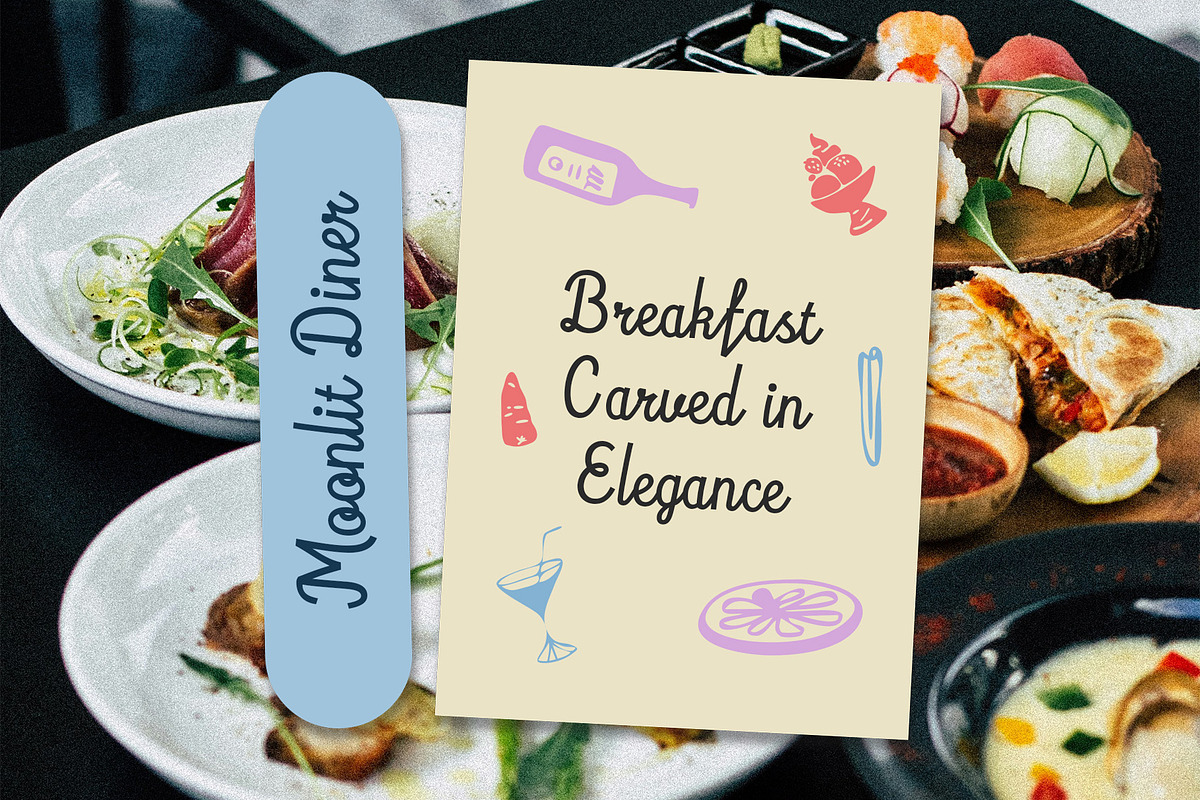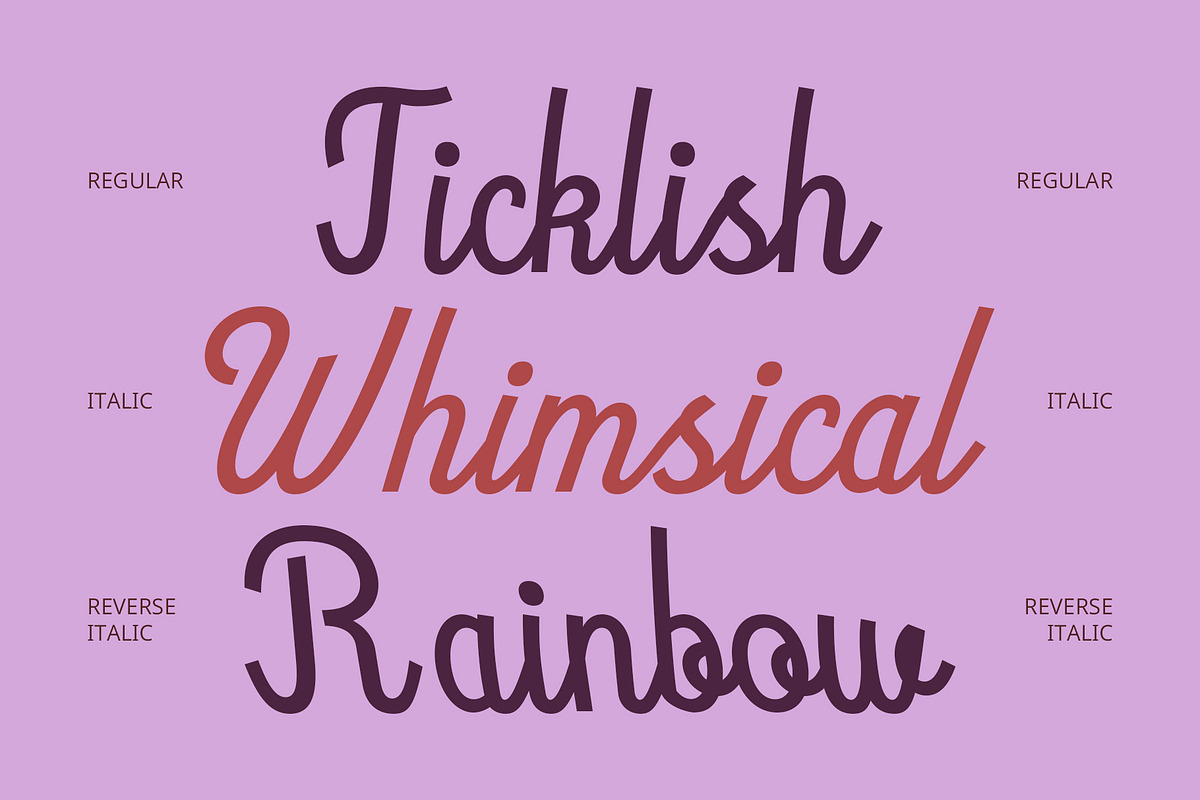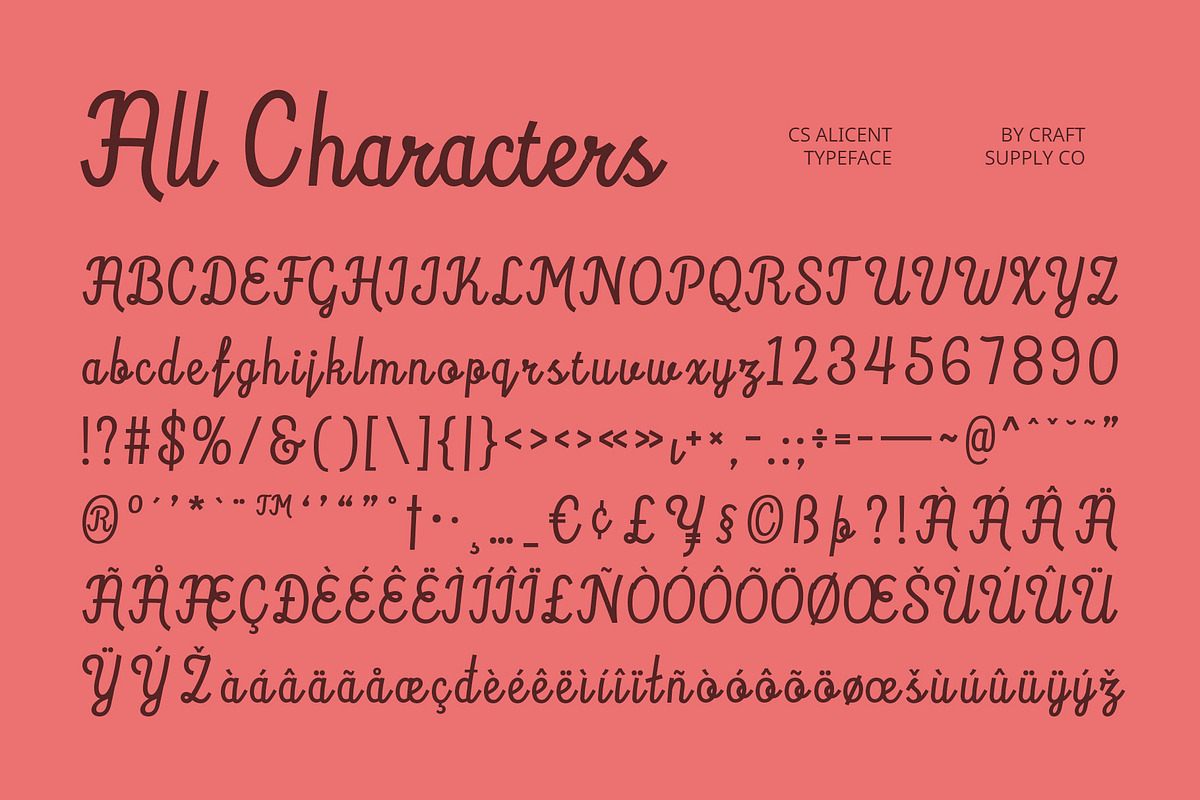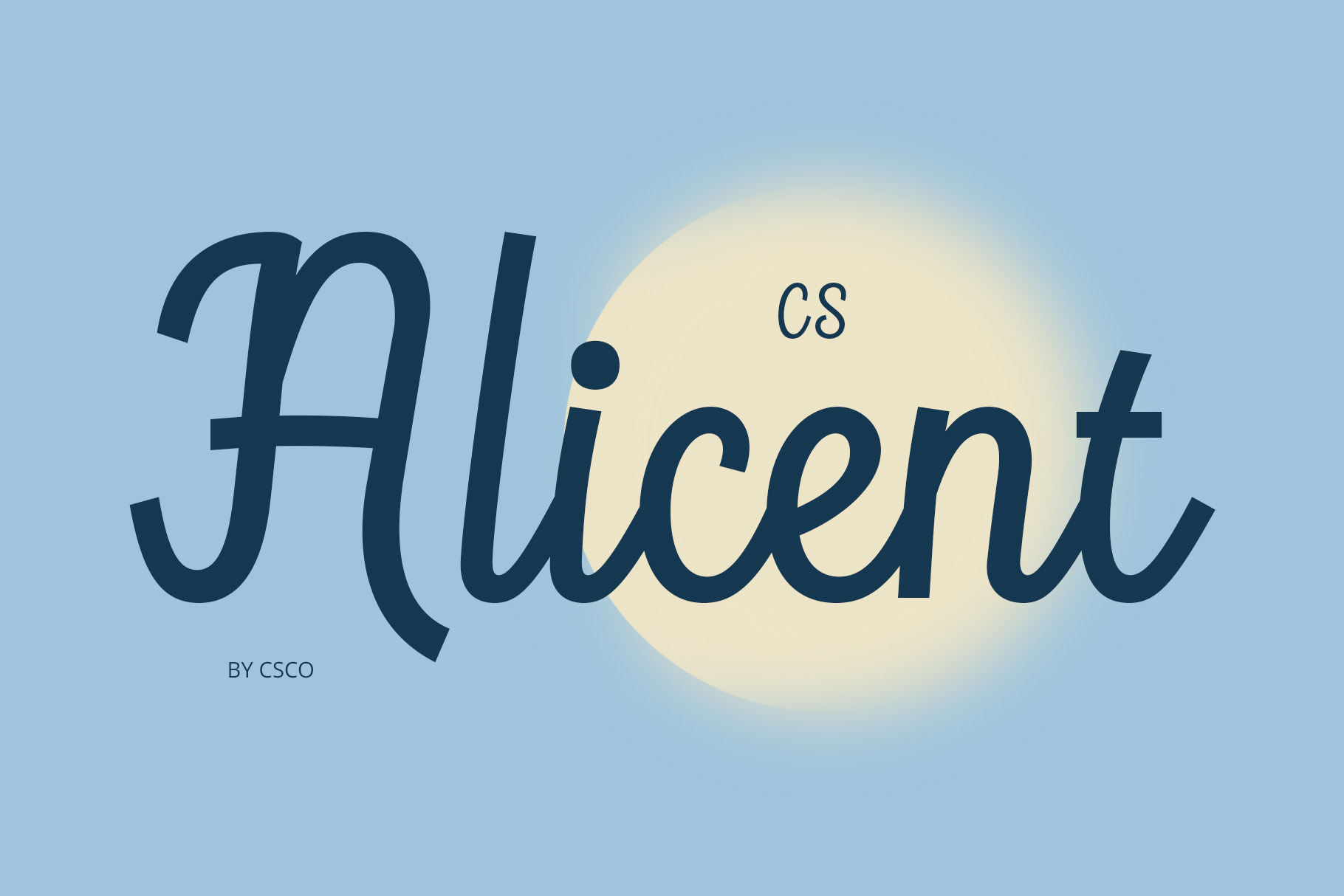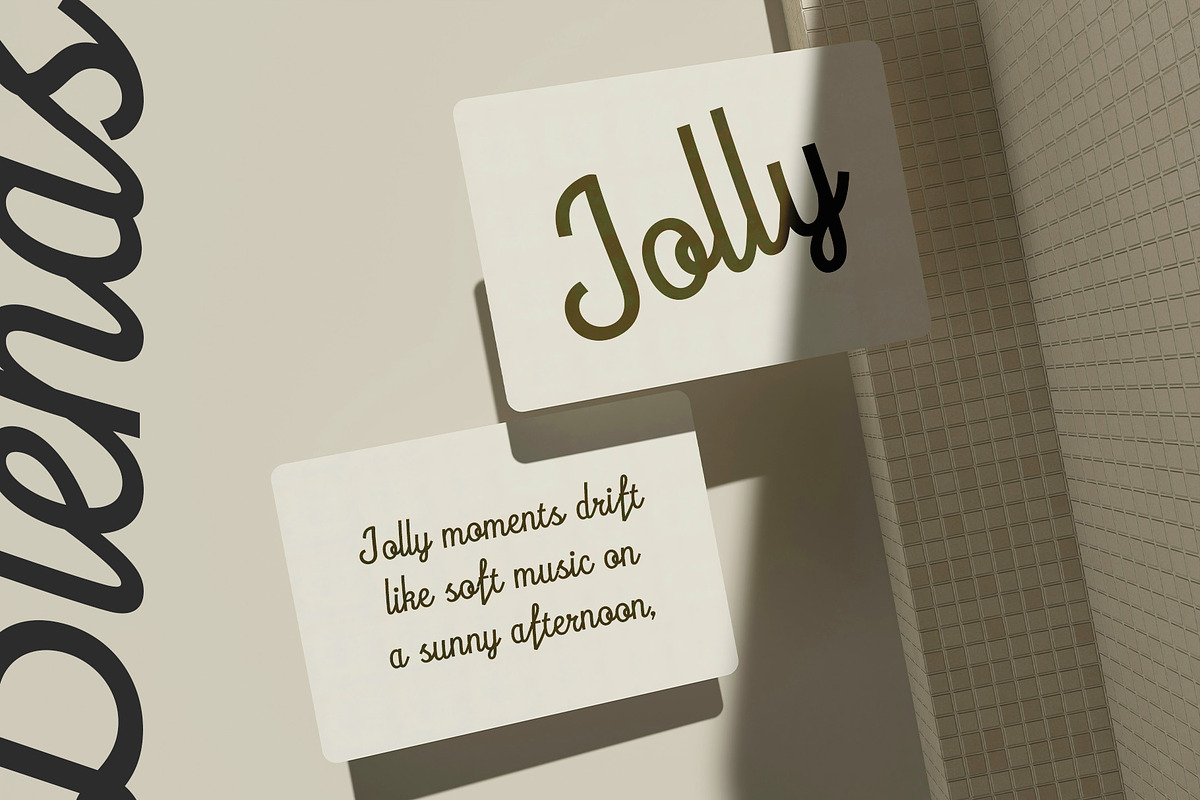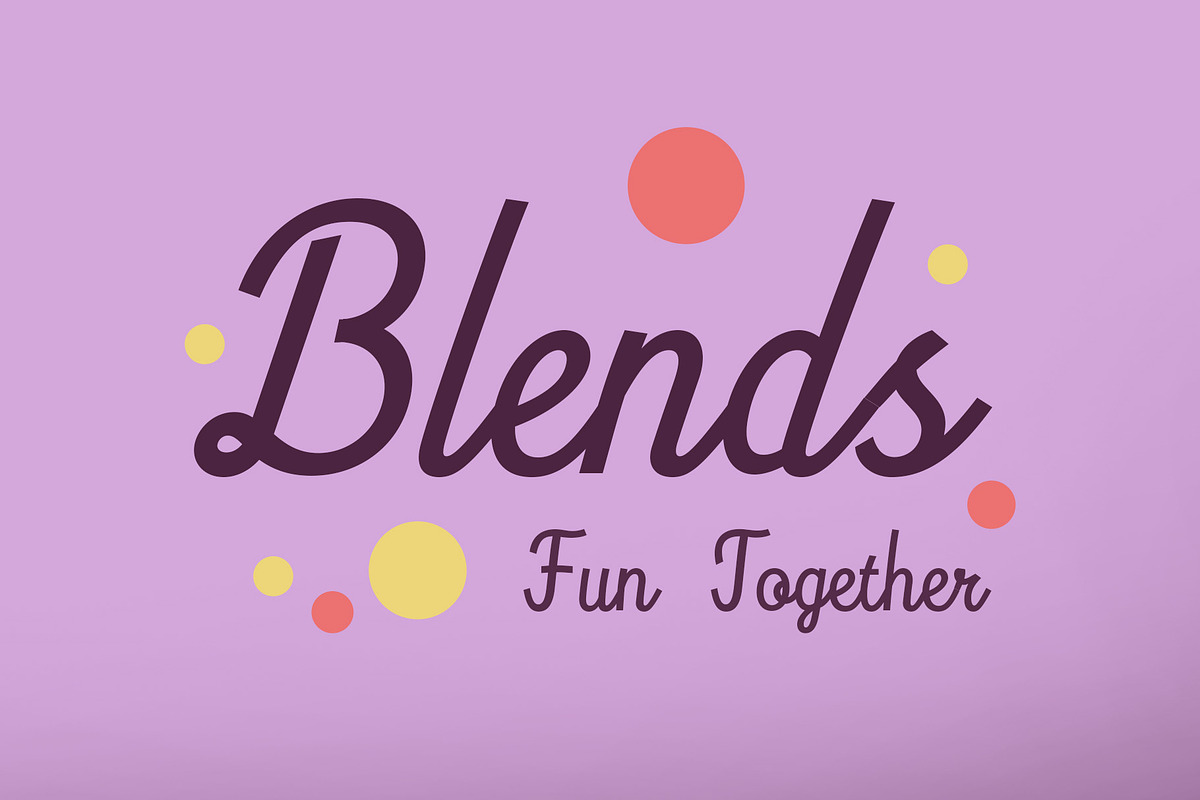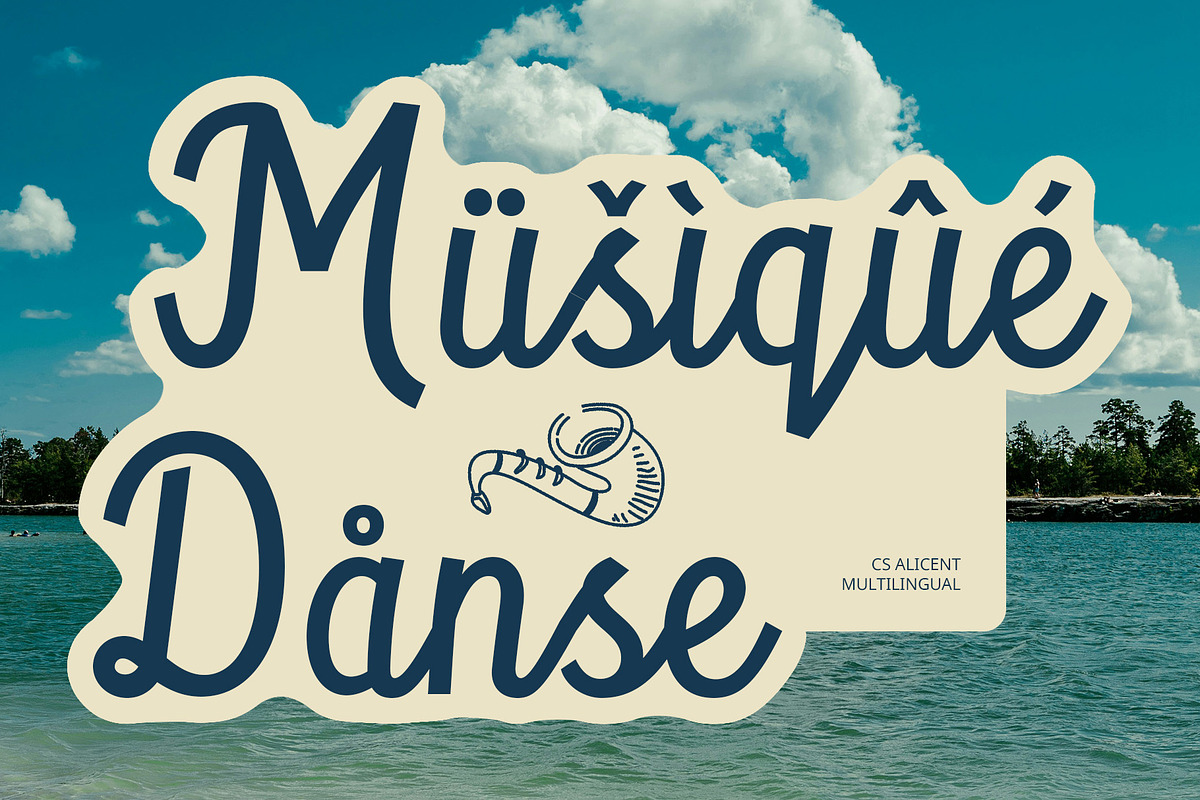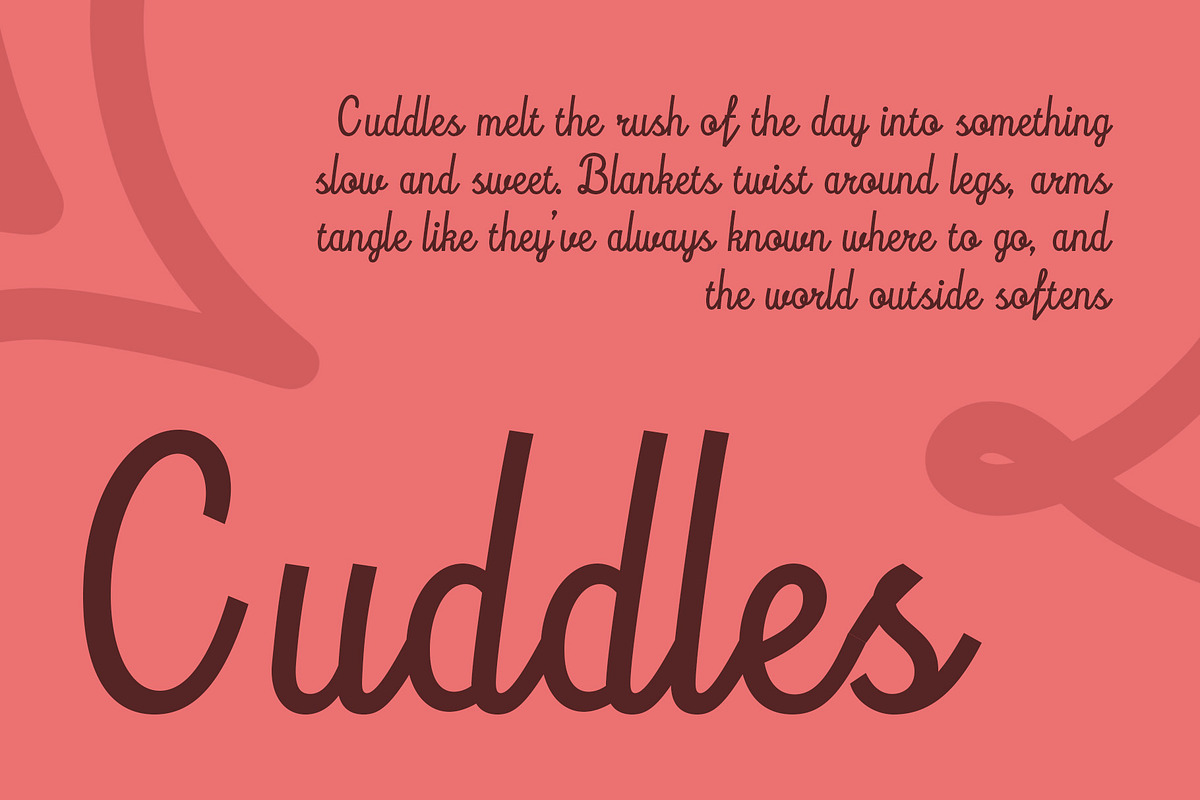
CS Alicent – Script Font
CS Alicent – Script Font: Graceful Beauty in Every Stroke
Natural Handwritten Flow with Modern Elegance CS Alicent is a modern script font crafted with a flowing, handwritten style that feels organic and sophisticated. Each letter glides smoothly with natural rhythm, creating a seamless and elegant connection across words
Feminine and Aesthetic Impression Delicate curves and smooth lines give this font a distinctly feminine touch. The gentle form adds beauty and warmth, making it perfect for designs that need a tender, graceful, and emotionally engaging appearance.
Soft, Elegant Vibe for Beauty and Lifestyle Design With its refined and soft aesthetic, CS Alicent fits beautifully into beauty branding, skincare packaging, and lifestyle visuals. It exudes sophistication while remaining personal and approachable.
Versatile for Invitations, Branding, and More From wedding invitations to high-end branding and editorial layouts, CS Alicent adapts gracefully. Its handwritten charm and professional finish make it a go-to choice for any project that aims to highlight elegance and softness with a modern sensibility. Whether used for wedding invitations, high-end packaging, editorial spreads, or logo design, CS Alicent adapts beautifully. Its graceful letterforms and balanced structure ensure legibility while maintaining its decorative charm. For projects seeking a combination of handwritten authenticity and polished professionalism, CS Alicent delivers the ideal blend of emotional appeal and stylish form.